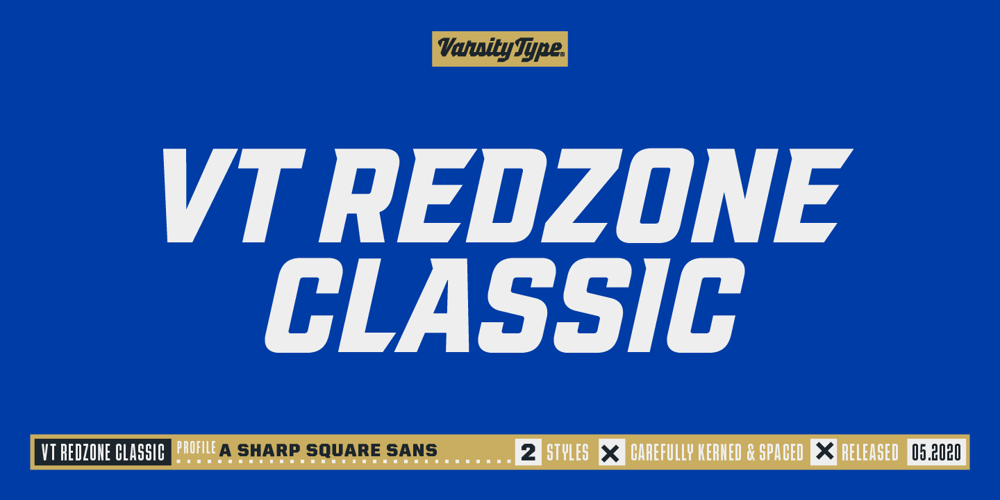
VT Redzone Classic Font Family was designed by CJ Zilligen and published by VarsityType. VT Redzone Classic contains 2 styles and family package options. Raw and uncut, this sharp square sans is ready to rip.Originally released in October 2017, VTF Redzone Classic is the first published typeface by CJ Zilligen. It’s raw and uncut — built with sharp terminals and spur serifs that give off an aggressive appearance. VTF Redzone Classic was refreshed in May 2020 to include nearly 200 new characters, extensive language support, and a sleek and long-anticipated Oblique version. This titlecase display typeface is tooled to give any project a competitive edge.